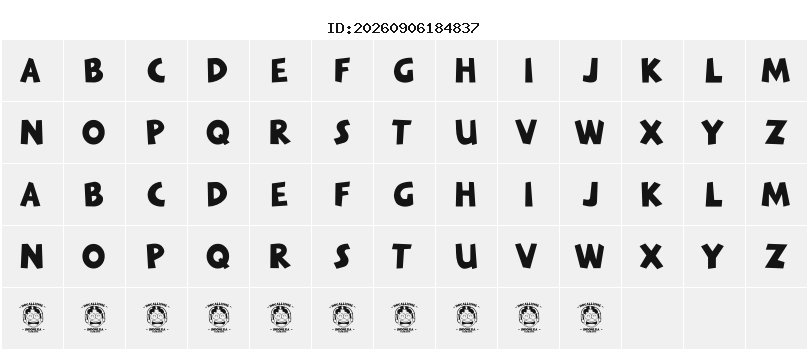
THE MINION Preview
About THE MINION.otf
THE MINION.otf is a modern, elegant sans-serif font designed for ultimate readability and visual harmony. Perfect for branding, headlines, web design, and print materials.